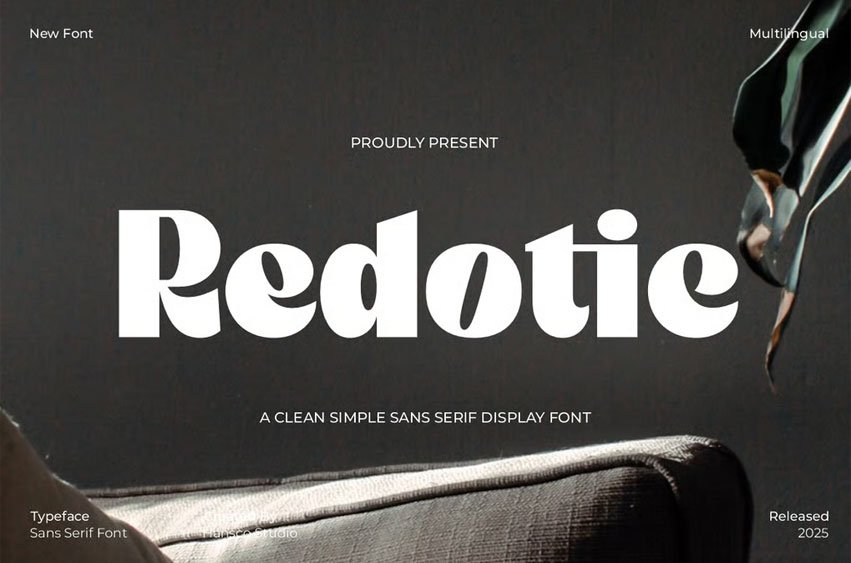
Redotic Font is a display bold sans serif font with a modern look!. Equipped with all complete characters ranging from lowercase, uppercase letters, numbers, punctuation marks, and multi-lingual support, this font is ready to be used in any project.
Very suitable for Logotype, Stickers, Packaging design, Headlines, Brand identity, Posters, Magazines, Books, Websites, or any of your creative design projects.